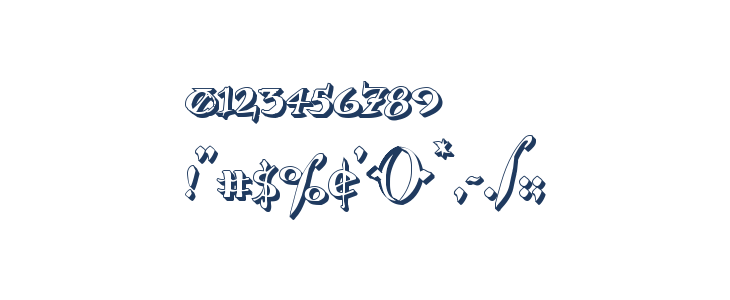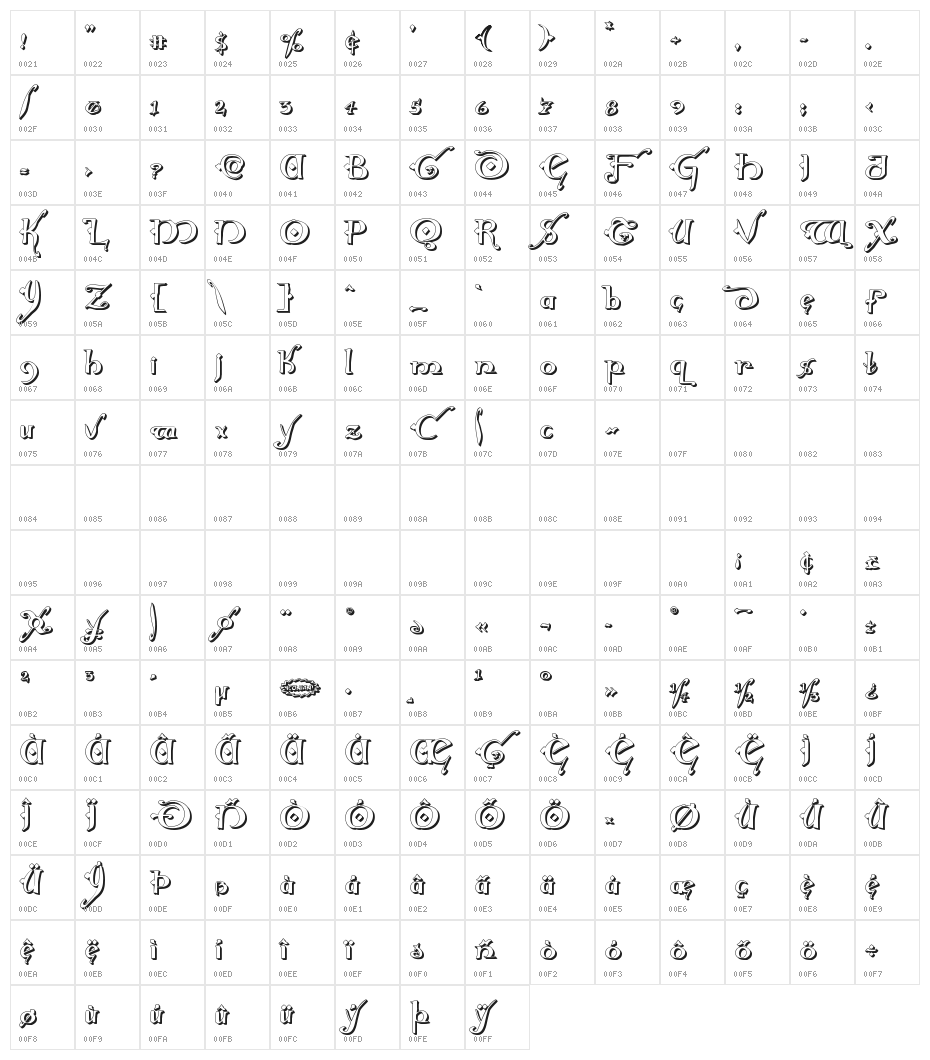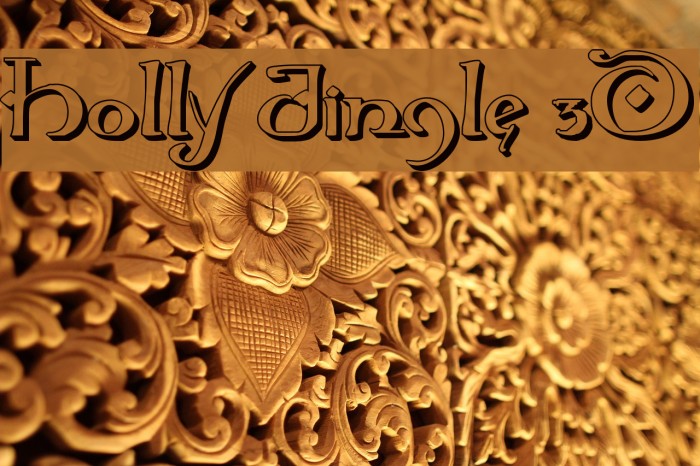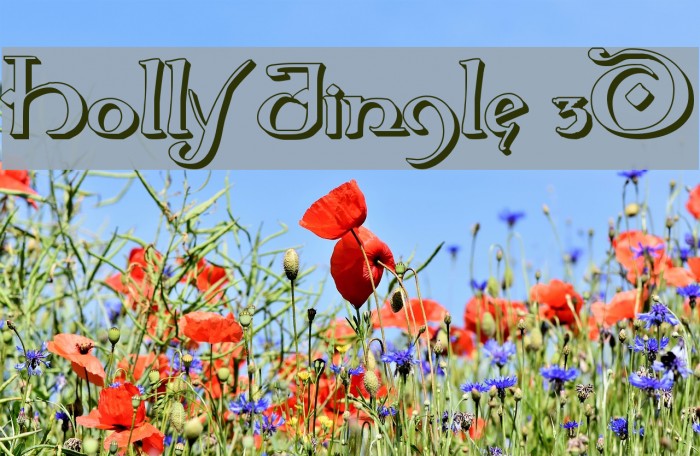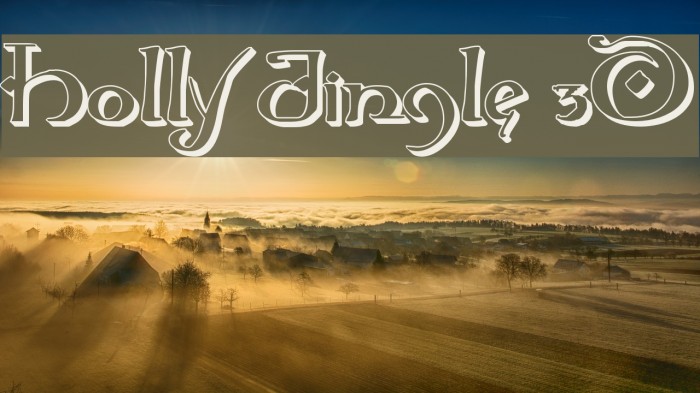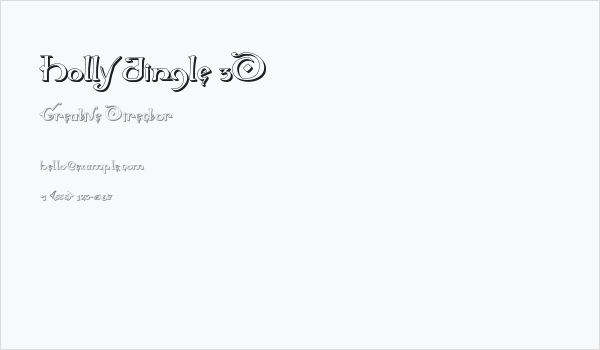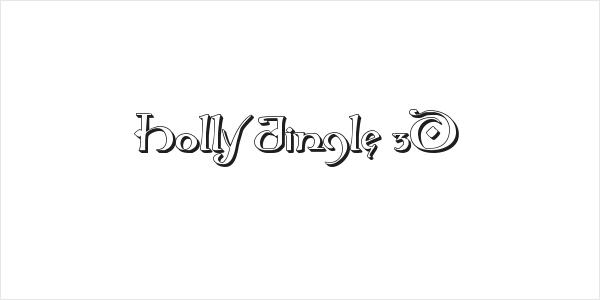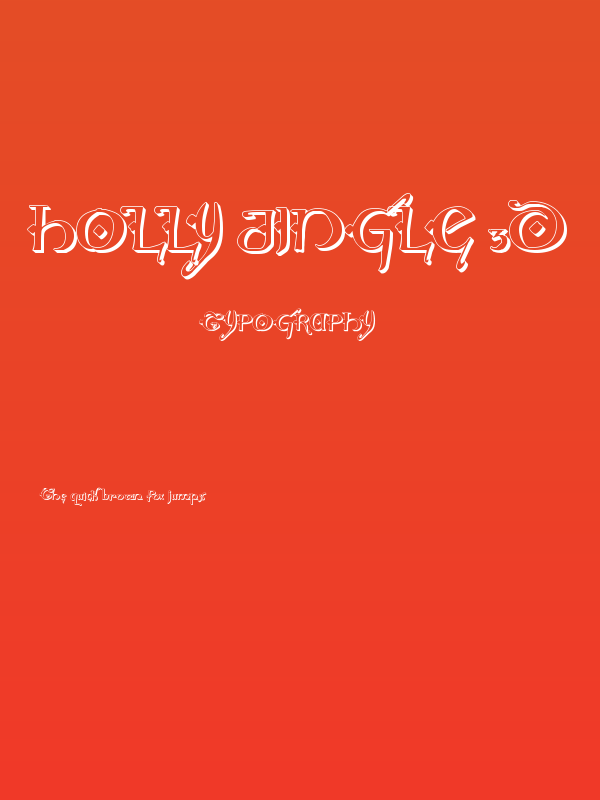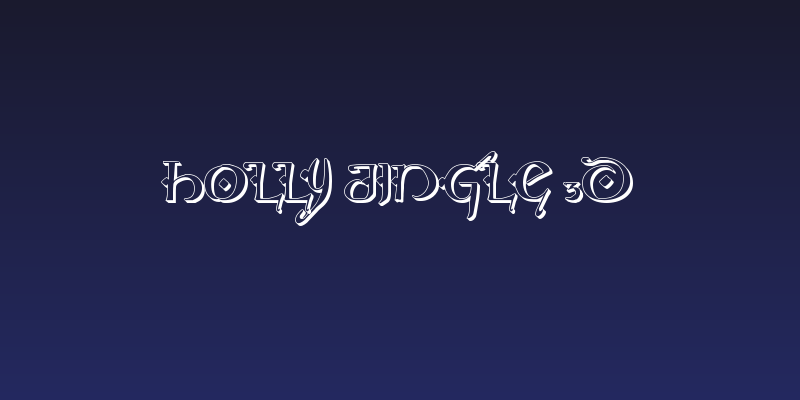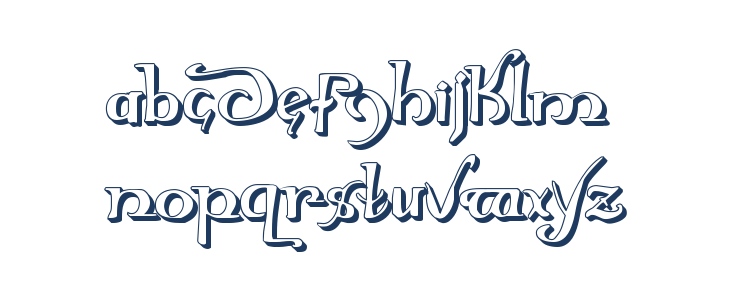
Holly Jingle 3D Font
Holly Jingle 3D Description
This font features a whimsical and decorative style, characterized by its bold, three-dimensional appearance. The letters are intricately designed with a playful, festive flair, incorporating elements that suggest a holiday or celebratory theme. Each character is outlined with a shadow effect, enhancing the 3D illusion and adding depth to the text. The strokes are moderately thick, contributing to a strong visual impact, while the overall design maintains a sense of elegance and sophistication. The font includes a full set of uppercase and lowercase letters, numbers, and a variety of special characters, making it versatile for different design needs.